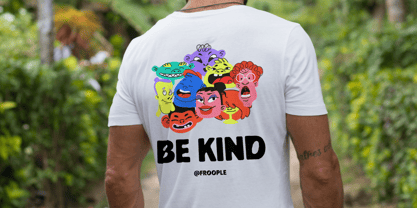
Froople
by Slidehack
The Froople Font Family was designed by Panca Hasan and published by Slidehack. Froople contains 1 styles.
Frootle is a fun and playful display font featuring soft, rounded shapes with a bold grotesque style. Perfect for branding, posters, children’s designs, and social media, it brings cheerful energy and friendly character to any project. Including uppercase and lowercase letters, Frootle is ideal for eye-catching titles and creative typography that feels lively, expressive, and visually engaging across digital and print designs.